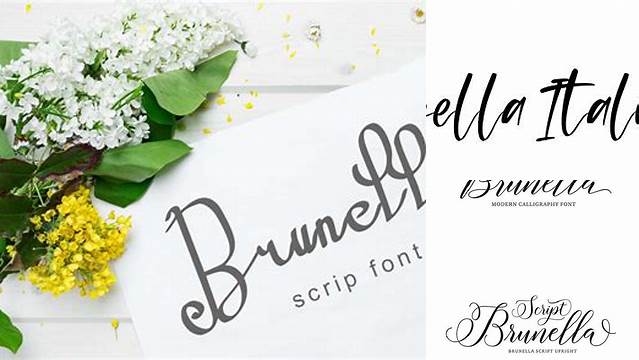
Brunella Script Font: Free Download And Usage Guide
Are you looking for that perfect script font to add a touch of elegance and personality to your projects? Well, look no further, guys! In this article, we're diving deep into the world of Brunella Script, a font that's been making waves in the design community. We'll explore what makes Brunella Script so special, where you can find a Brunella Script font free download TTF, and how to use it effectively in your designs. So, buckle up and let's get started on this font-tastic journey!
What is Brunella Script Font?
When it comes to fonts, Brunella Script is a real gem. It's a beautifully crafted typeface that falls under the category of script fonts, which are known for their flowing, handwritten-like appearance. Think of it as the digital equivalent of elegant calligraphy. This font exudes sophistication and charm, making it a popular choice for a wide range of design applications. But what exactly makes Brunella Script stand out from the crowd? Let's break it down:
- Elegant Design: The most striking feature of Brunella Script is its graceful curves and delicate strokes. It mimics the fluidity of natural handwriting, giving your text a personal and refined touch. Each letter seamlessly connects to the next, creating a harmonious and visually appealing flow. This makes it perfect for projects where you want to convey a sense of style and sophistication.
- Versatility: Don't let its elegance fool you; Brunella Script is surprisingly versatile. While it's often used for formal occasions, it can also be incorporated into more casual designs. Whether you're working on wedding invitations, logos, branding materials, or social media graphics, Brunella Script can adapt to your needs. Its adaptability makes it a valuable asset in any designer's toolkit.
- Readability: Despite its intricate details, Brunella Script maintains a good level of readability. The letters are distinct enough to be easily deciphered, even at smaller sizes. Of course, like any script font, it's best used for headings, titles, and short blocks of text, rather than large paragraphs. But when used appropriately, it can add a touch of flair without sacrificing clarity.
- Emotional Impact: Fonts have the power to evoke emotions, and Brunella Script is no exception. Its graceful and flowing lines can create a sense of romance, elegance, and warmth. This makes it particularly well-suited for projects that aim to convey these emotions, such as wedding-related designs, heartfelt messages, or branding for businesses that want to project a sophisticated image.
In summary, Brunella Script is more than just a font; it's a design tool that can add personality, elegance, and a touch of human connection to your projects. Its versatility and emotional impact make it a favorite among designers and creatives alike. Now that we know what makes Brunella Script so special, let's talk about where you can find a Brunella Script font free download TTF.
- Font Sites: There are numerous websites dedicated to offering free fonts, and many of them have a wide selection of script fonts. Some popular options include DaFont, FontSpace, and Creative Fabrica's Freebies section. These sites often have a tagging and categorization system that allows you to easily filter fonts by style (e.g., script, handwritten) and license type (e.g., free for personal use, free for commercial use). When browsing these sites, be sure to check the license information for each font to ensure it aligns with your intended use. For example, a font that's free for personal use might not be suitable for a commercial project.
- Creative Market: While Creative Market is primarily a marketplace for premium design assets, they often offer a selection of free goods, including fonts, on a rotating basis. Keep an eye on their freebies section, as you might just stumble upon a gem like Brunella Script. The advantage of downloading from Creative Market is that you can generally trust the quality and licensing terms of the fonts they offer.
- MyFonts: MyFonts is another reputable font marketplace that sometimes features free fonts as part of promotions or special offers. While their main focus is on commercial fonts, it's worth checking their site periodically to see if any free script fonts are available. Like Creative Market, MyFonts is known for its high-quality fonts and clear licensing information.
- Google Fonts: While Google Fonts may not have an exact match for Brunella Script, it's an excellent resource for free, open-source fonts that can serve a similar purpose. They offer a variety of script and handwriting-style fonts that you can use in your projects, and the best part is that they're all licensed under the SIL Open Font License, which allows for both personal and commercial use. This is a great option if you need a reliable and legally sound source for free fonts.
So there you have it, guys! We've explored the beauty and versatility of Brunella Script font, discussed where to find a Brunella Script font free download TTF, and learned how to use it effectively in your designs. Brunella Script is a fantastic addition to any designer's toolkit, offering a touch of elegance and personality that can elevate your projects. Just remember to use it wisely, pair it thoughtfully, and always consider the context of your design. With a little practice, you'll be crafting stunning visuals with Brunella Script in no time. Now go forth and create something beautiful!